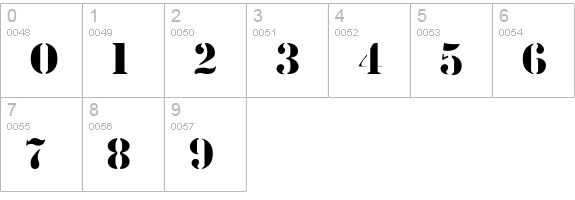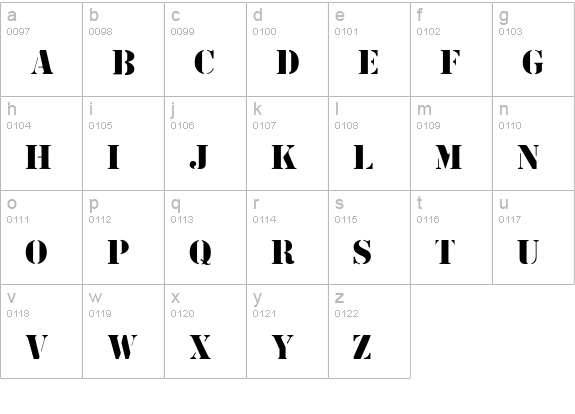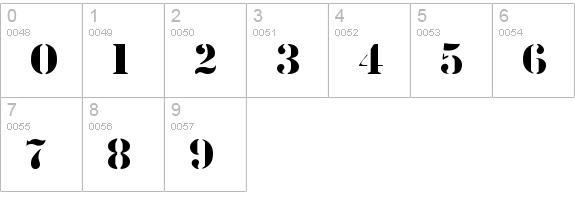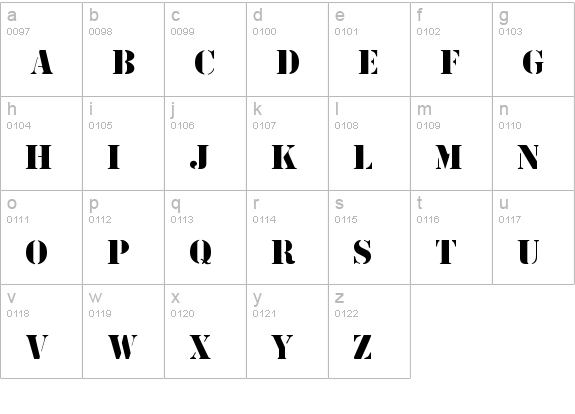
RoadieSSK Font Details
RoadieSSK font is a versatile and modern typeface that combines boldness with elegance, making it perfect for a wide range of design projects. With its clean lines and unique style, RoadieSSK font is sure to make a statement and capture attention. This font is available for free download at FontsMarket.com, allowing designers and creatives to easily access this high-quality typeface for their creative endeavors. Whether you're designing a poster, logo, website, or any other graphic project, RoadieSSK font will add a touch of sophistication and flair to your work. Don't miss out on the opportunity to enhance your designs with this stunning font that is both stylish and free to use. Download RoadieSSK font today and take your designs to the next level!